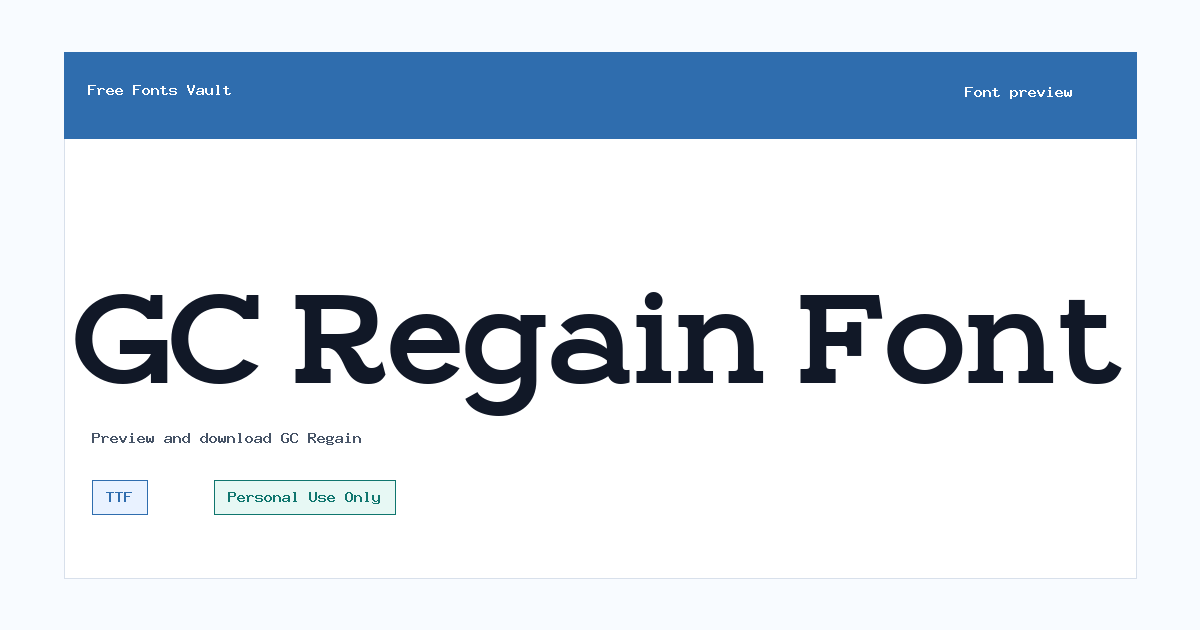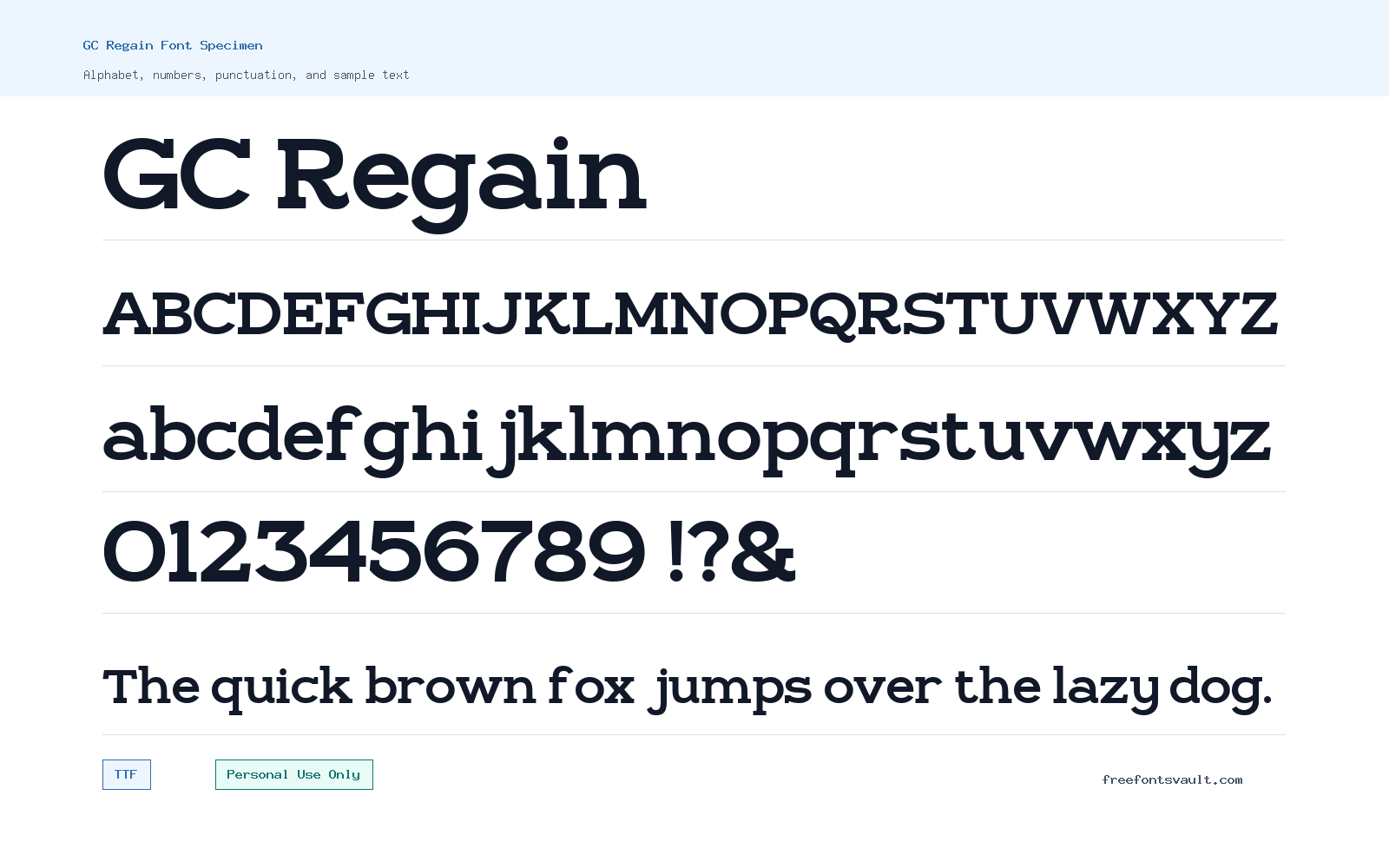
GC Regain
- Designer Dwi Indah Fadhilatul Amanah by Glyphonic
GC Regain is a slab serif font from Glyphonic with a regular TTF demo file for personal-use projects. It is a good font to test when you want strong letter shapes with serif detail in titles, posters, and display text.
About GC Regain Font
GC Regain is presented as a slab serif font, so visitors should expect a more structured serif style rather than a soft script or plain sans serif. The available file is a regular-weight TTF, which makes it simple to install and try in common design apps. Because only one regular style is included, it is best to preview the exact words you plan to use before building a full layout around it.
Use GC Regain where the font can be shown at a comfortable size: headings, short quotes, social graphics, labels, cover mockups, and other display settings. For long paragraphs, test readability carefully in the preview tool, especially at smaller sizes. If you pair it with another font, a clean sans serif can help keep body text easy to read while GC Regain handles the headline or accent text.
GC Regain can also work well when you want a sturdier serif voice for personal posters, title cards, and cover-style layouts. If the design includes smaller supporting text, keep that copy in a simpler companion font so the slab serif remains the main accent.
- Slab serif style suited to display typography and short text
- Posters, title graphics, covers, and social media artwork
- Short headings, labels, branding mockups, and personal design experiments
The font is credited to Dwi Indah Fadhilatul Amanah by Glyphonic, with Glyphonic listed as the foundry.
What kind of font is GC Regain?
GC Regain is listed as a slab serif font, which makes it more suitable for display text such as headings, posters, and short titles than for long body copy.
Who designed GC Regain?
The font is credited to Dwi Indah Fadhilatul Amanah by Glyphonic.